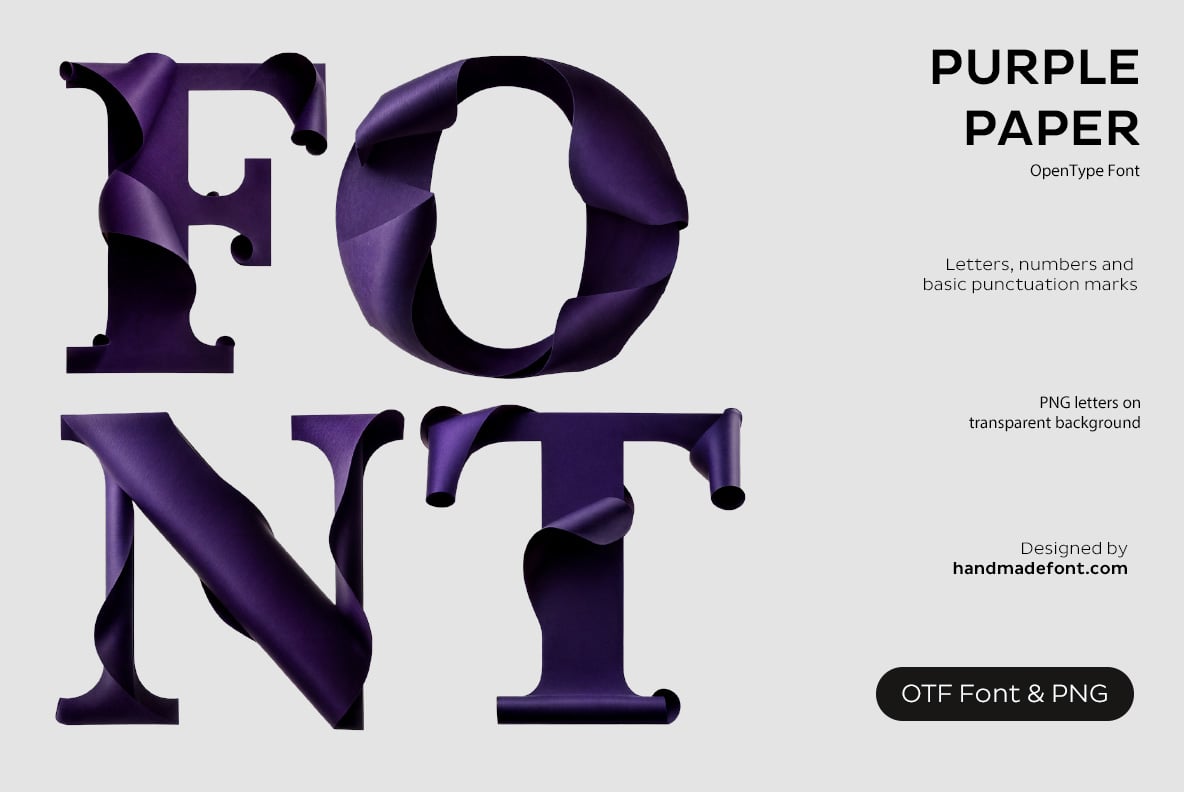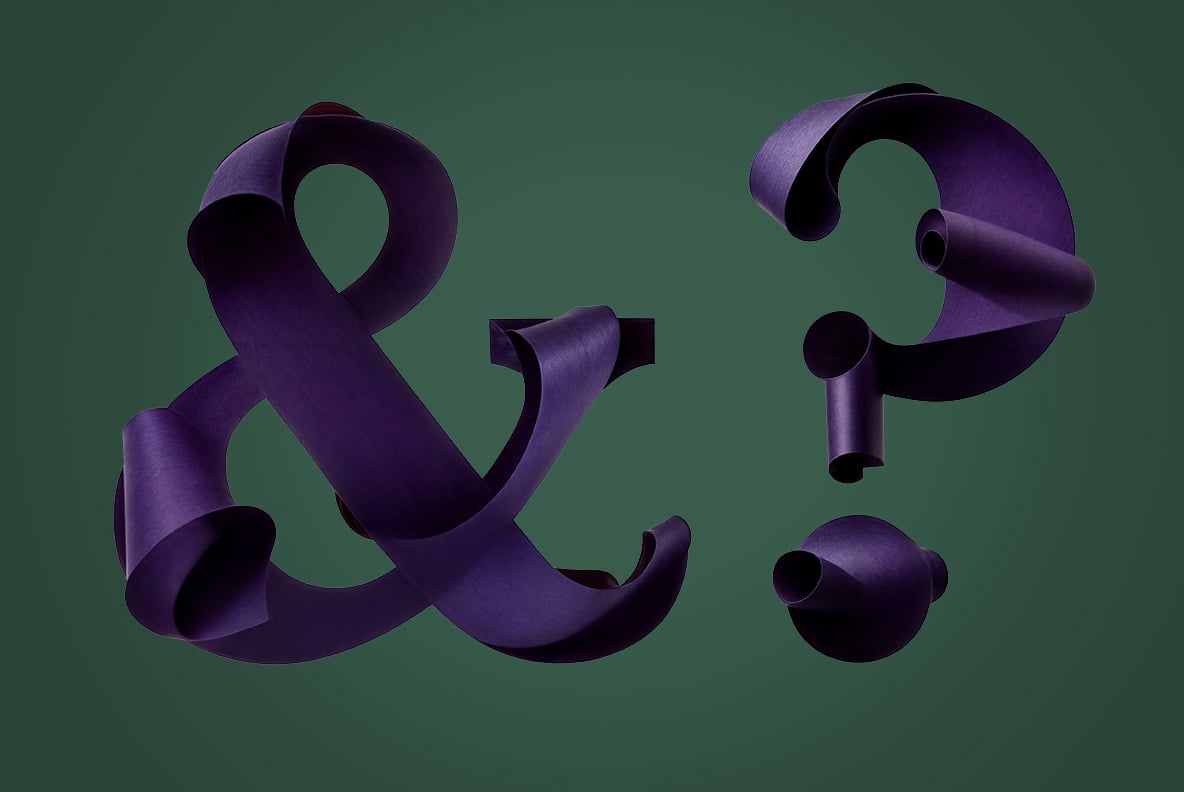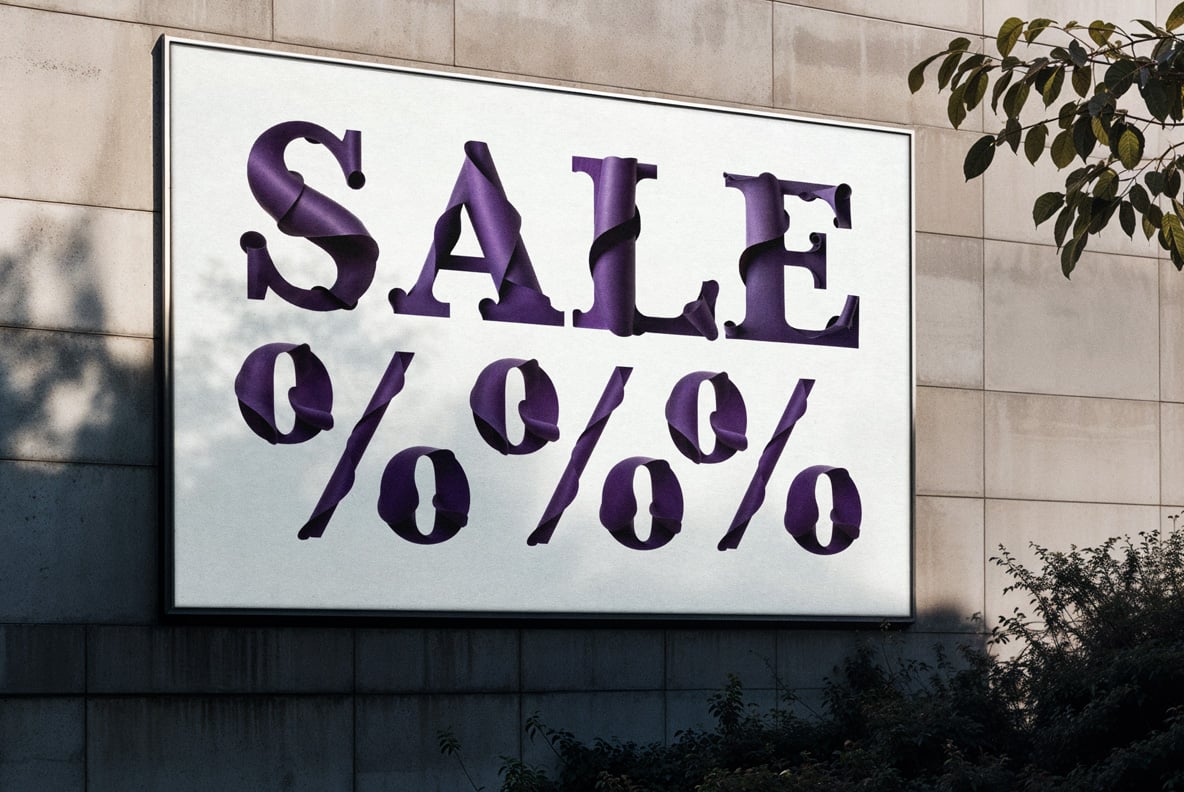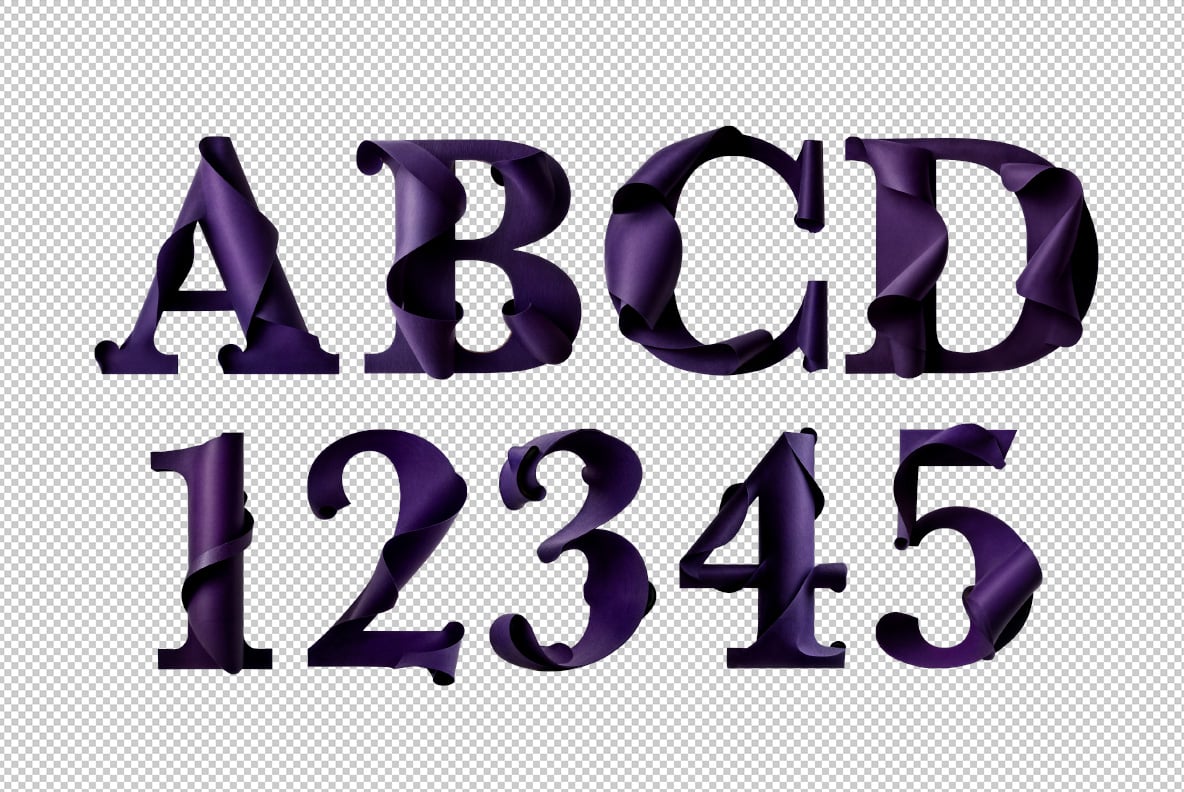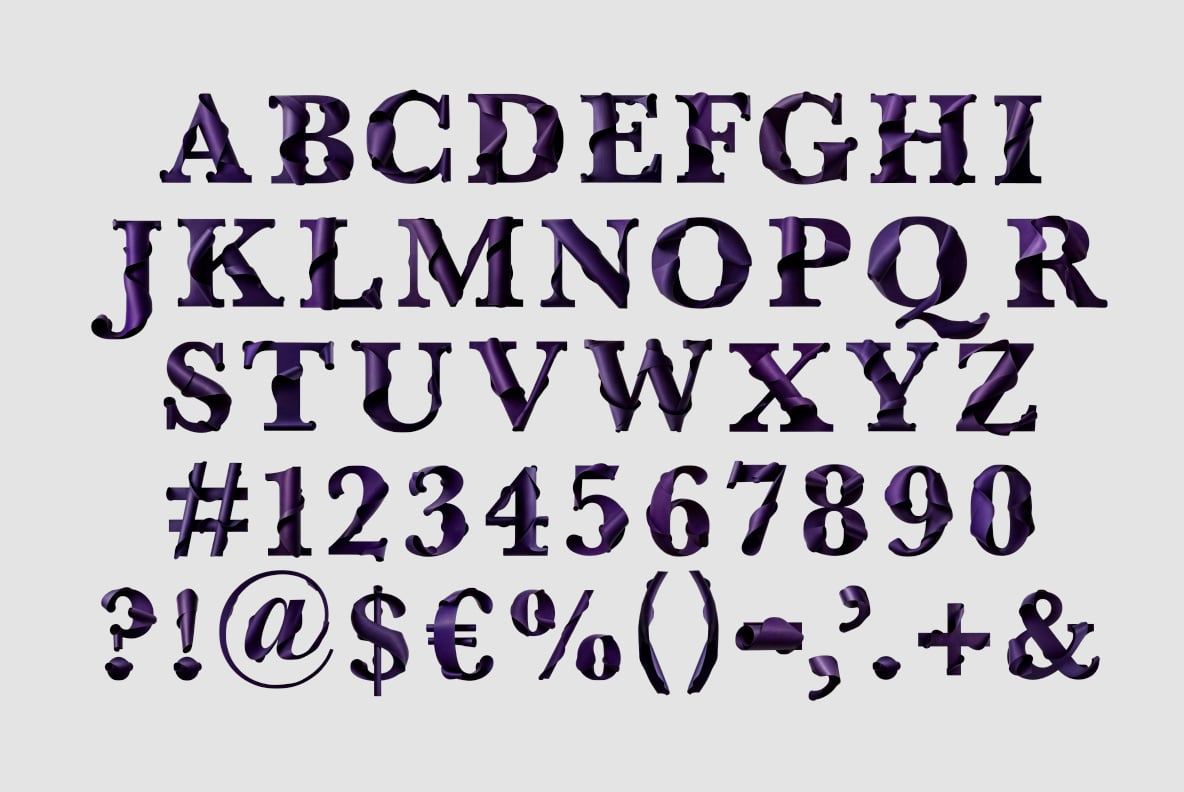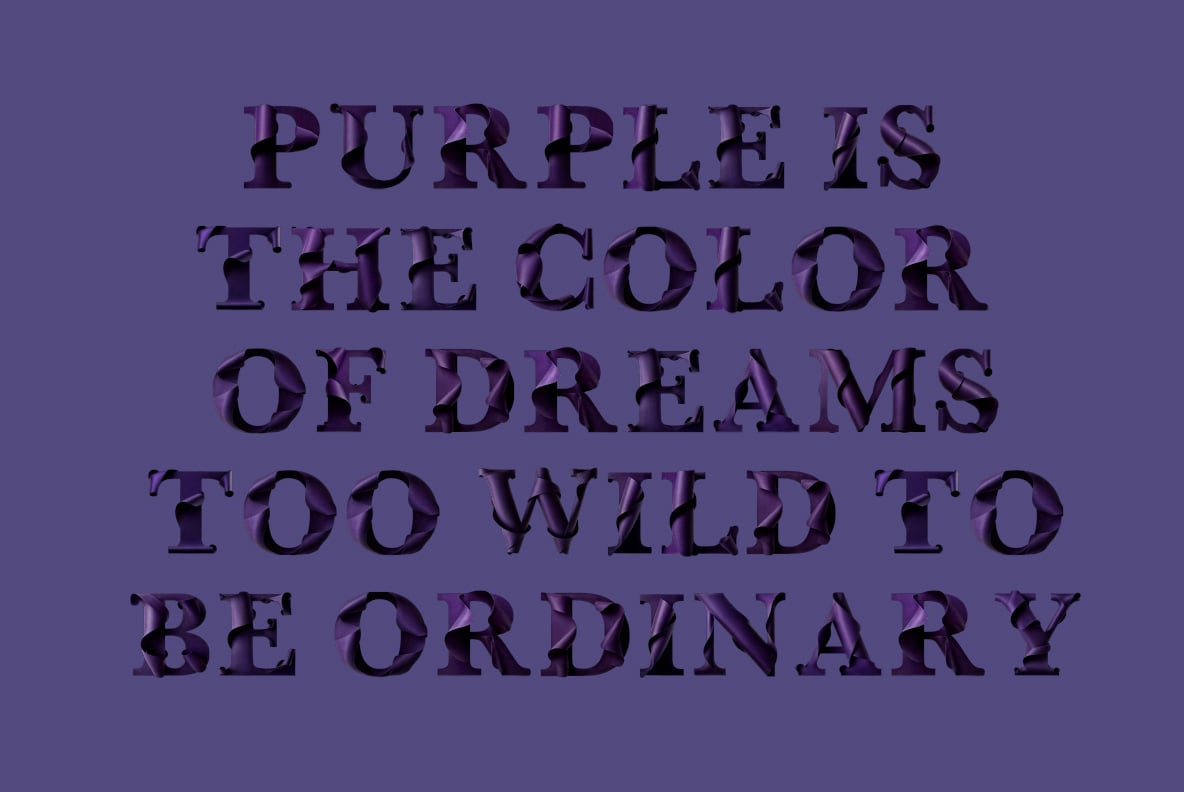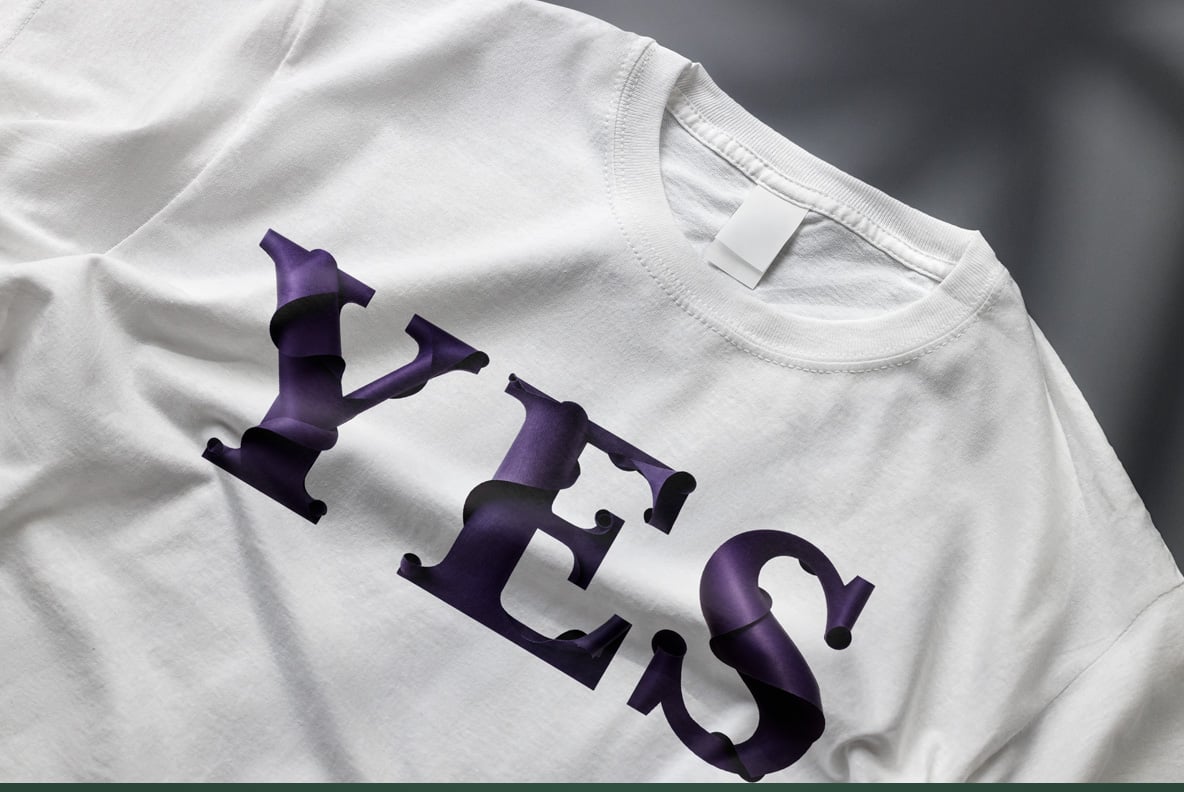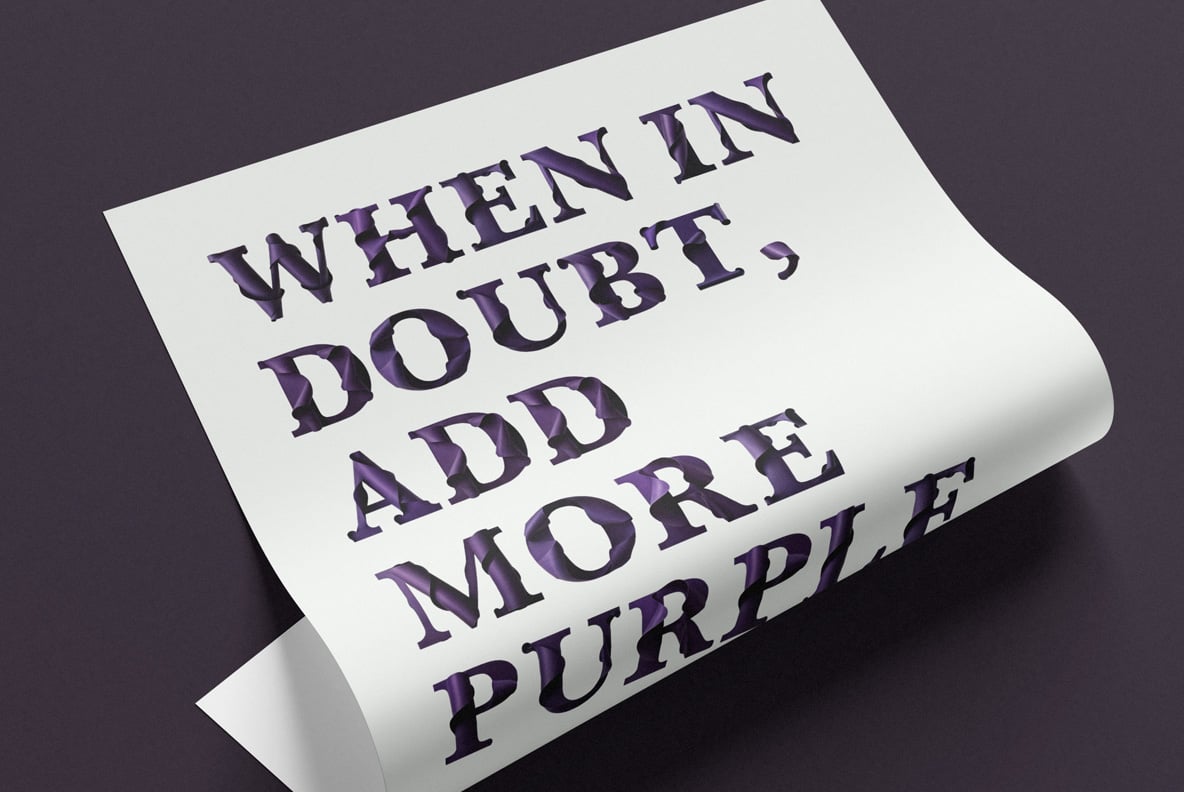
Purple Paper Font
Deep in the world of typography, where elegance meets creativity, the Purple Paper Font unfolds—literally! Each letter is a masterpiece, crafted from rich, purple paper, curling and twisting like a stylish origami dream. This purple paper typography oozes sophistication, blending serif-style charm with a touch of rebellious flair—because who says paper can’t have attitude? Whether you're designing with a luxury aesthetic or just want your words to feel fabulously artistic, this purple paper lettering delivers. Refined yet playful, stylish yet bold—this decorative font is proof that paper cuts are worth it when they look this good!